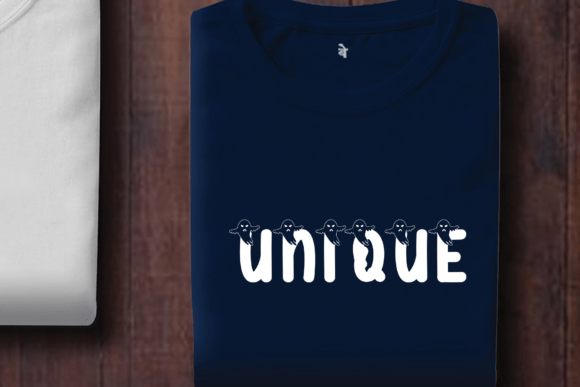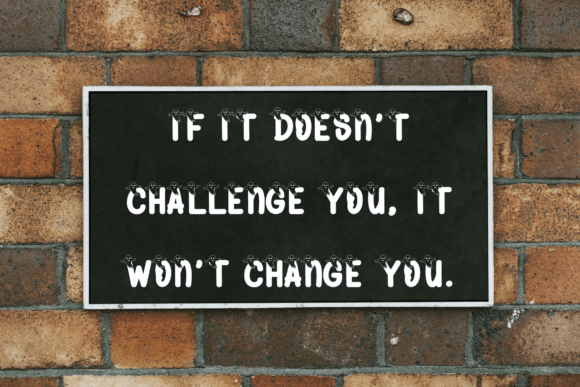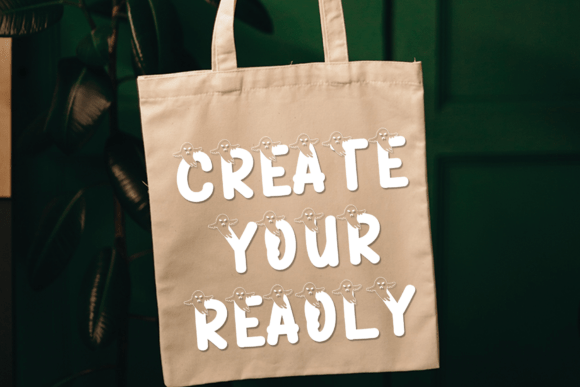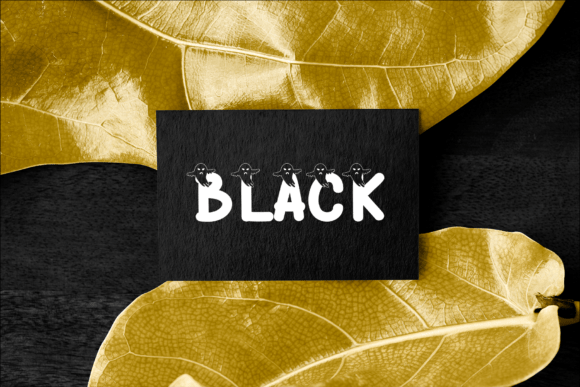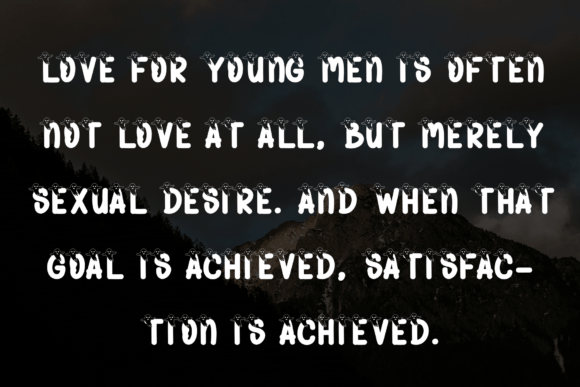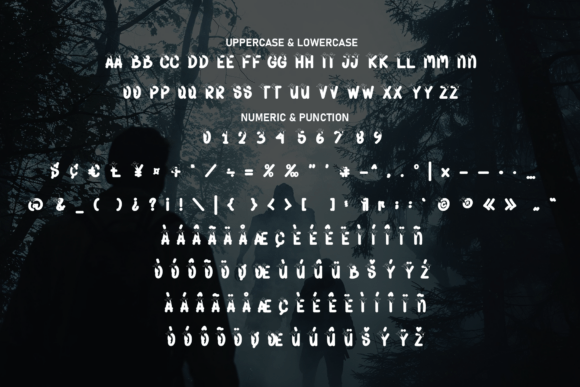
Unleash the Spooky Spirit with Ghost Hunter Font
Are you looking for a font that embodies the spirit of Halloween and adds a touch of whimsy to your designs? Look no further than the Ghost Hunter Font, a bold and imaginative display font that is sure to make your projects stand out. With its unique blend of spooky aesthetic and creative style, this font is perfect for designers and crafters who want to add a bit of eerie elegance to their work.
A Font that Embodies the Spirit of Halloween
Ghost Hunter Font is designed with a “creative style” spooky aesthetic that is sure to capture the essence of Halloween. The typeface features thick, rounded letterforms with a stable vertical axis and consistent monolinear weight, giving it a sturdy and dependable feel. But what really sets it apart is the inclusion of stylized, cartoon-like ghost icons that float above the characters, providing immediate thematic personality and visual energy.
Perfect for High-Impact Designs
Ghost Hunter Font is a standout choice for high-impact Halloween marketing, youth-oriented spooky branding, creative event signage, and impactful social media headers. Its bold and imaginative design makes it perfect for grabbing attention and adding a touch of personality to your projects. Whether you’re designing a flyer for a Halloween party, a logo for a spooky-themed business, or a social media header for a haunted house attraction, this font is sure to make your design pop.
Key Features of Ghost Hunter Font
- Bold and Imaginative Design: Ghost Hunter Font features thick, rounded letterforms with a stable vertical axis and consistent monolinear weight, making it perfect for high-impact designs.
- Stylized Ghost Icons: The font includes stylized, cartoon-like ghost icons that float above the characters, adding a touch of whimsy and personality to your designs.
- Spooky Aesthetic: The font is designed with a spooky aesthetic that is perfect for Halloween marketing, spooky branding, and haunted house attractions.
- Creative Style: Ghost Hunter Font has a creative style that is sure to add a touch of personality to your designs.
Why Choose Ghost Hunter Font?
There are many fonts to choose from, but Ghost Hunter Font stands out from the rest. Here are just a few reasons why:
- Unique Design: Ghost Hunter Font has a unique design that is sure to grab attention and add a touch of personality to your projects.
- Versatile: The font is versatile and can be used for a variety of projects, from Halloween marketing to spooky branding and haunted house attractions.
- Easy to Read: Despite its bold and imaginative design, Ghost Hunter Font is easy to read, making it perfect for high-impact designs.
Tips for Using Ghost Hunter Font
Here are a few tips for using Ghost Hunter Font in your designs:
- Use it for Headlines: Ghost Hunter Font is perfect for headlines and titles, where its bold and imaginative design can really make an impact.
- Pair it with Other Fonts: Consider pairing Ghost Hunter Font with other fonts to add contrast and interest to your designs.
Ghost Hunter Font is a bold and imaginative display font that is sure to add a touch of spooky spirit to your designs. With its unique blend of spooky aesthetic and creative style, this font is perfect for designers and crafters who want to make a statement. Whether you’re designing a flyer for a Halloween party or a logo for a spooky-themed business, Ghost Hunter Font is sure to make your project stand out.